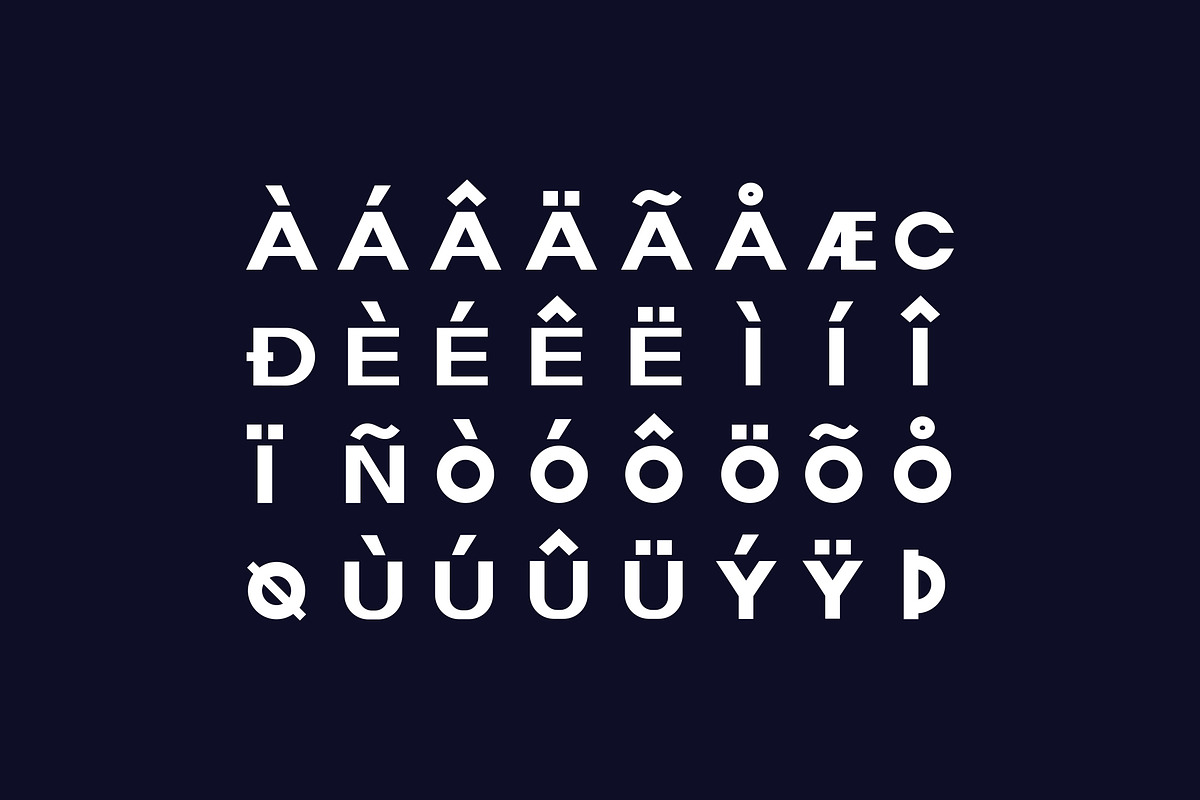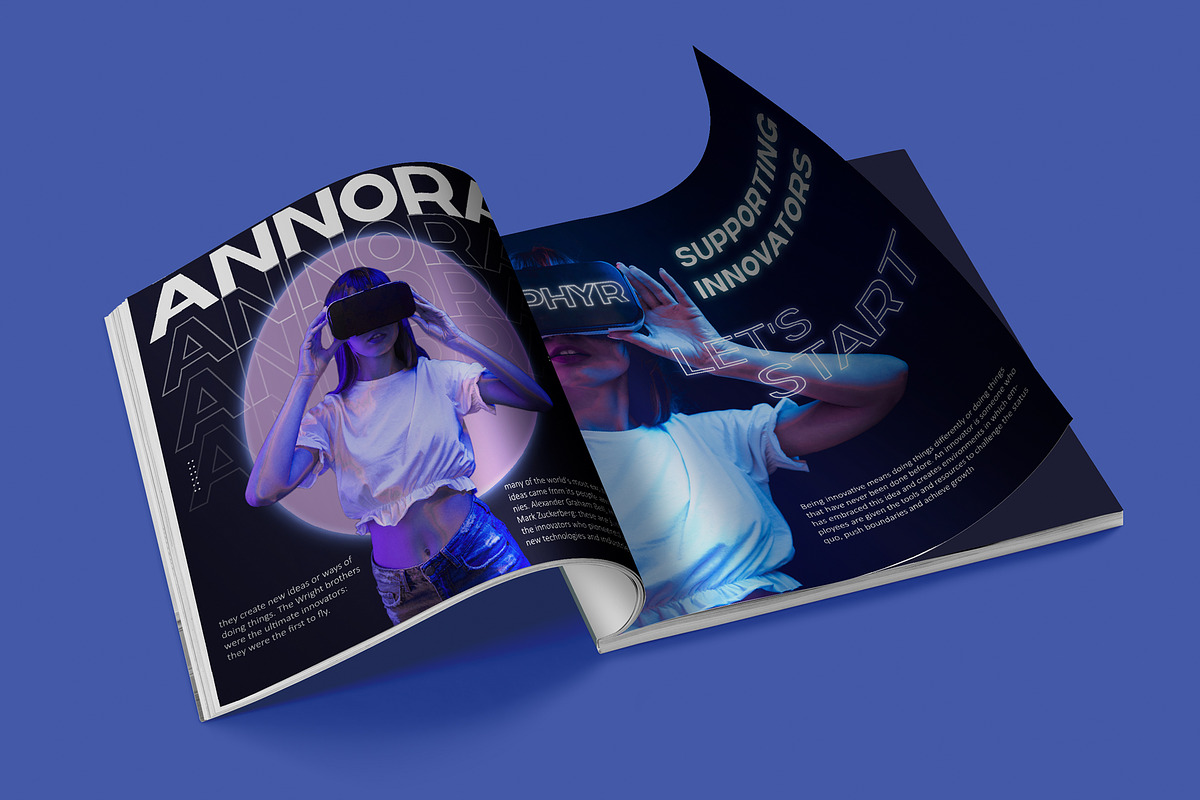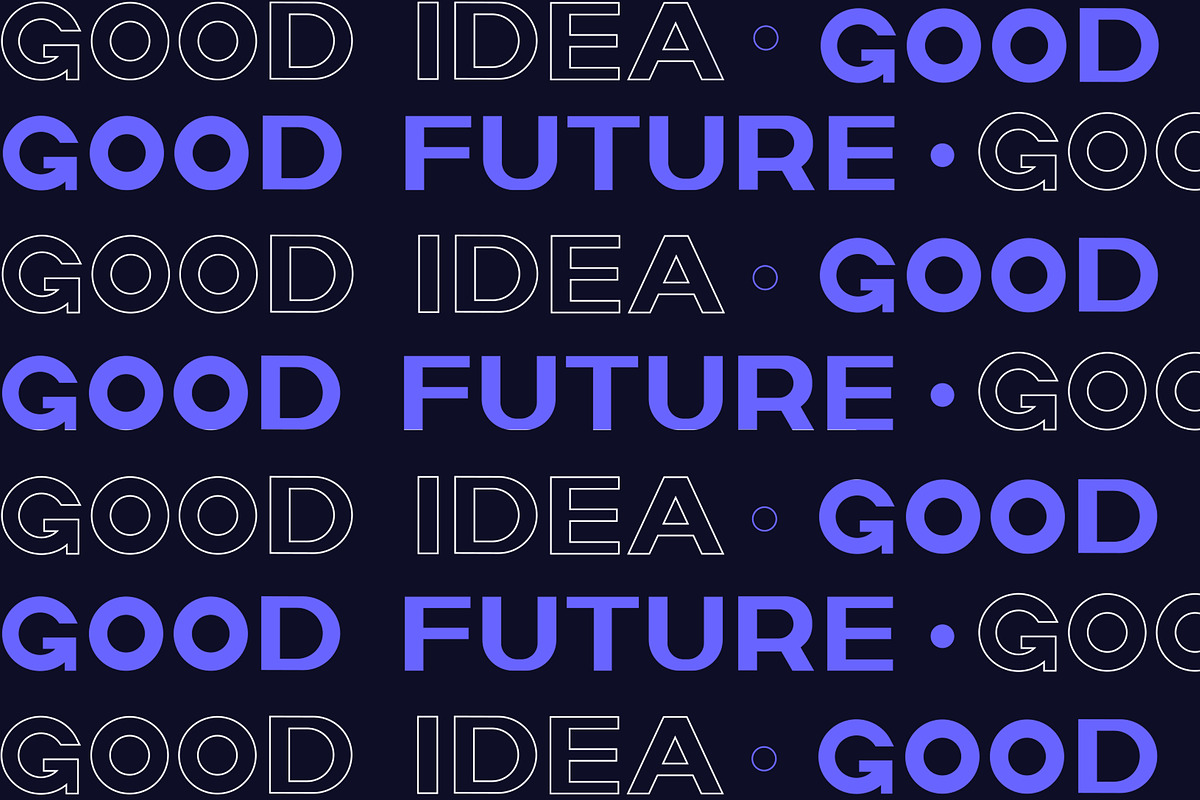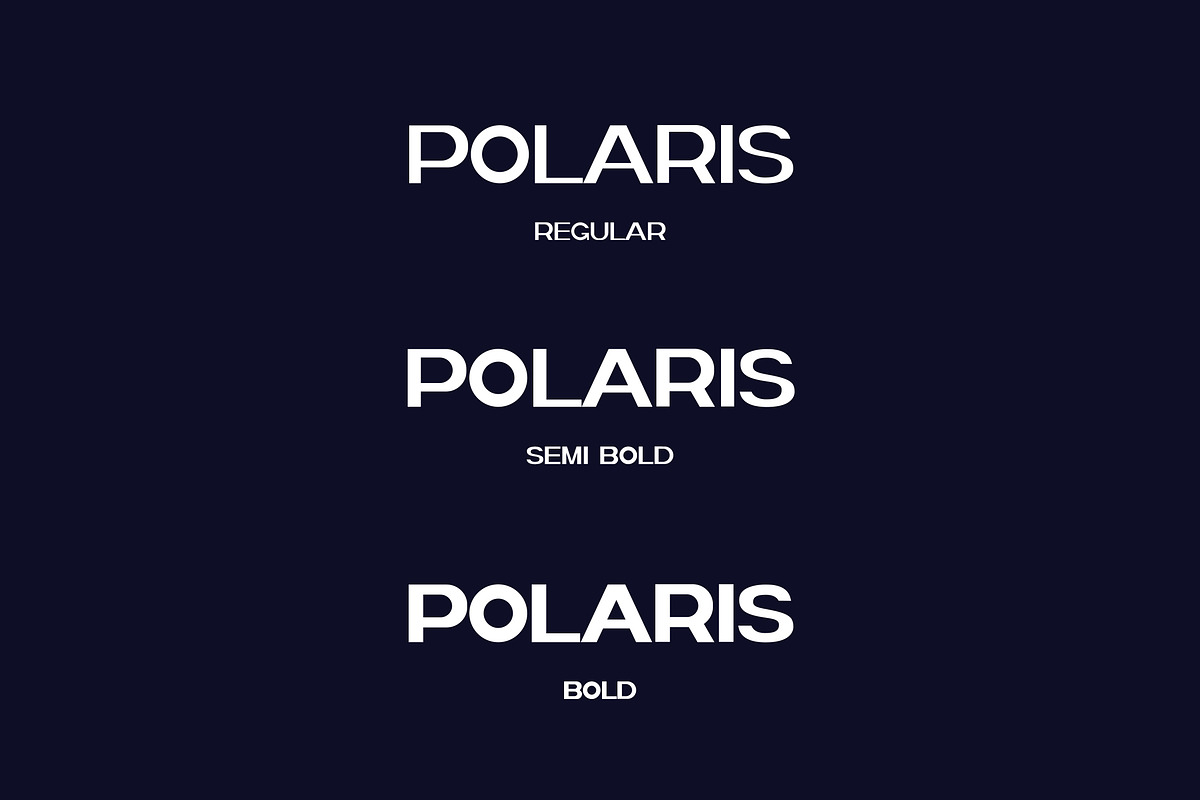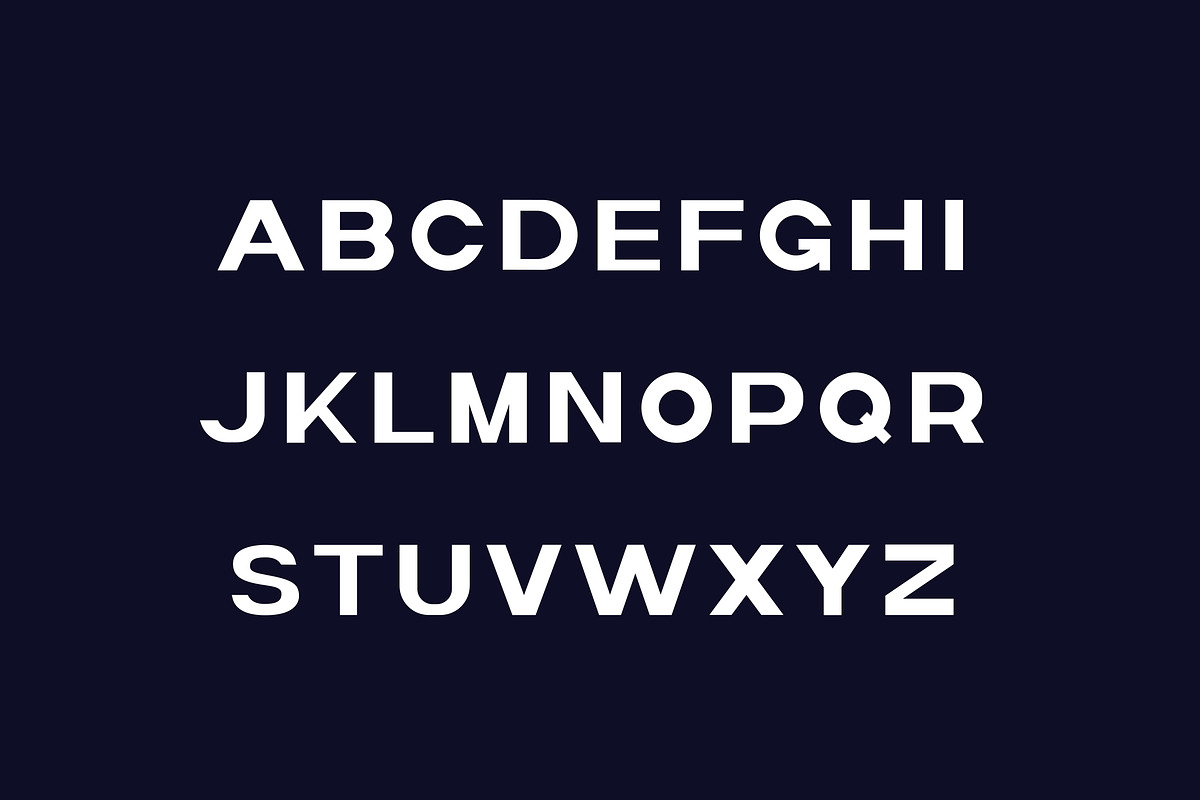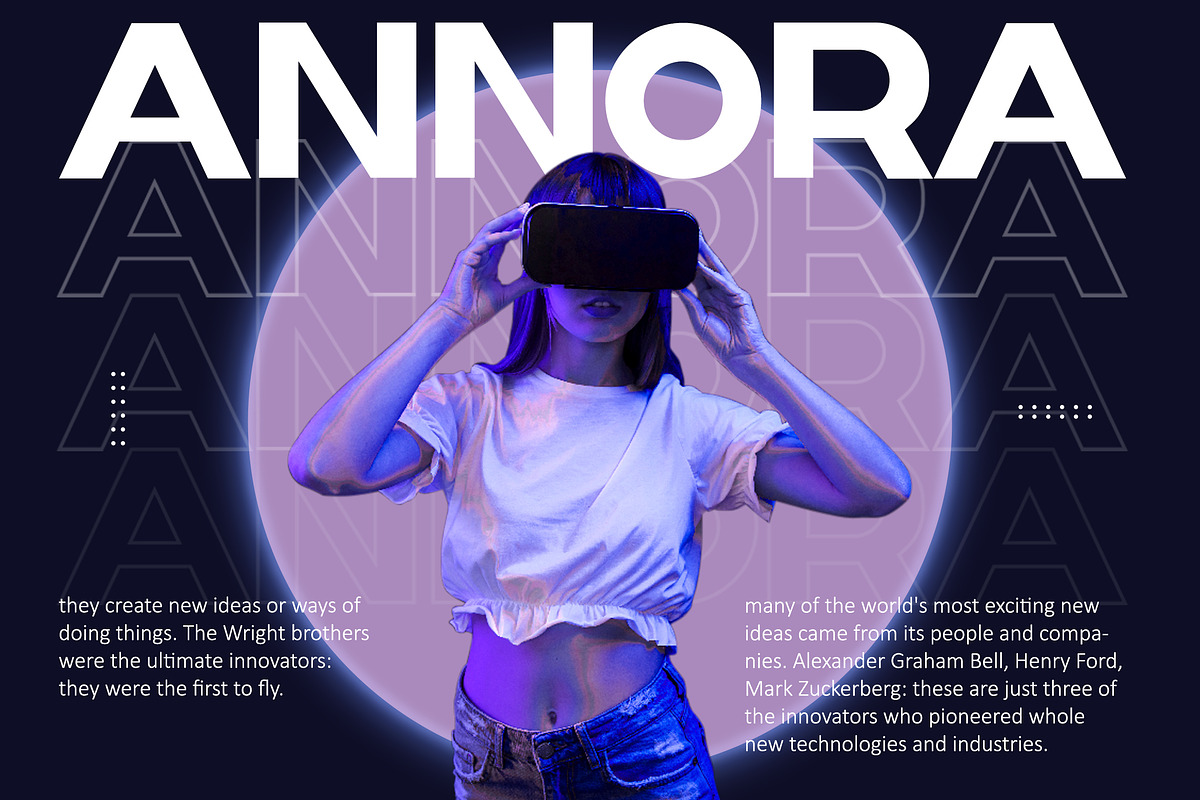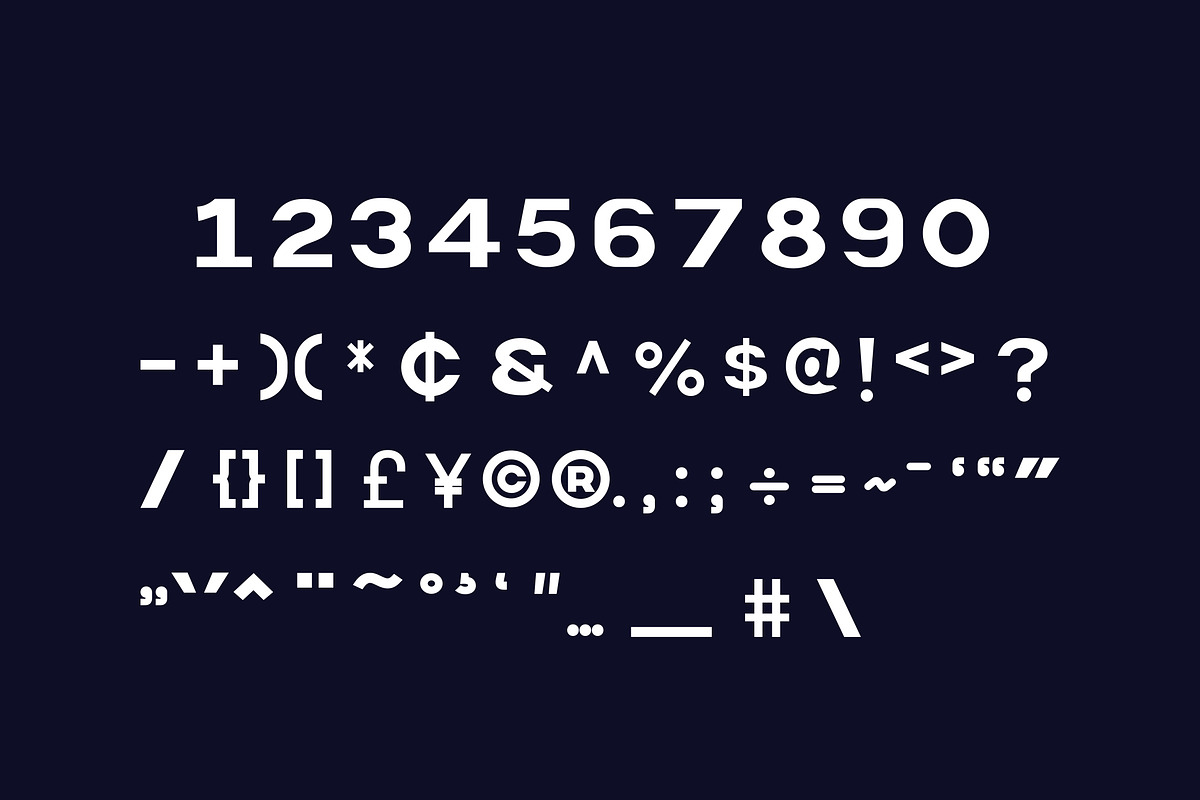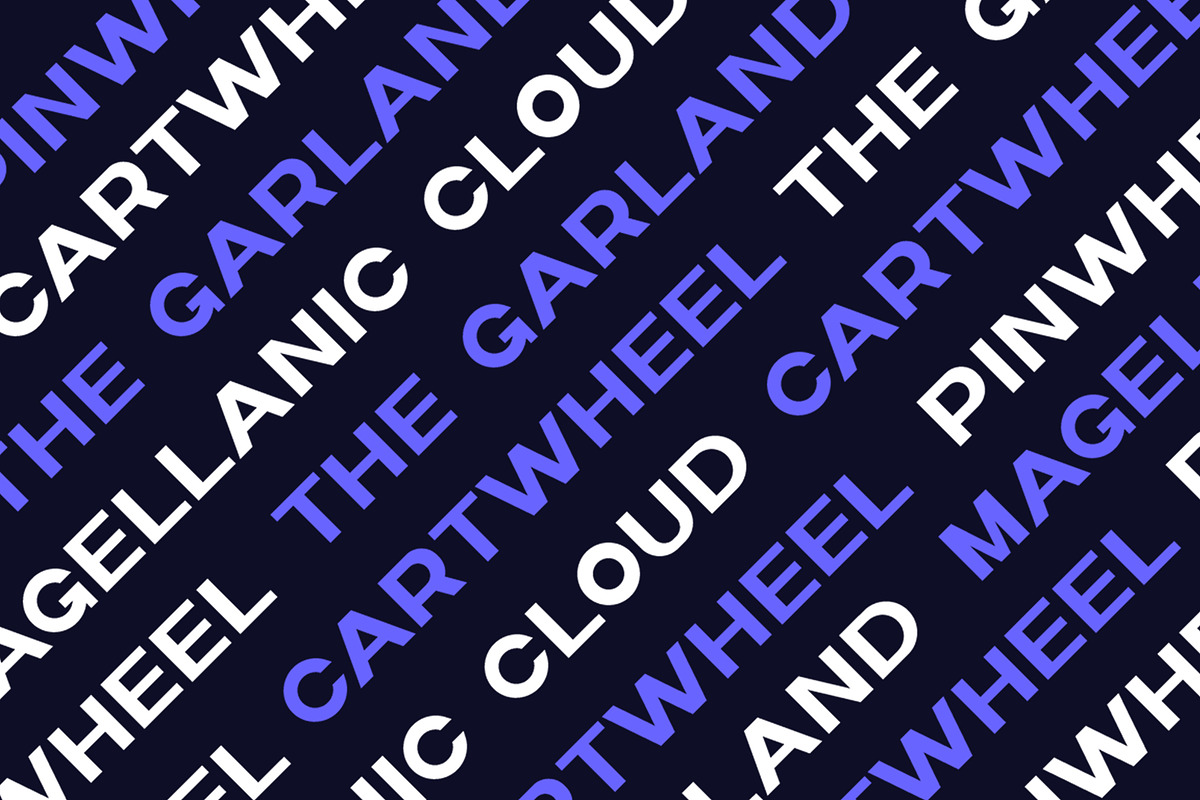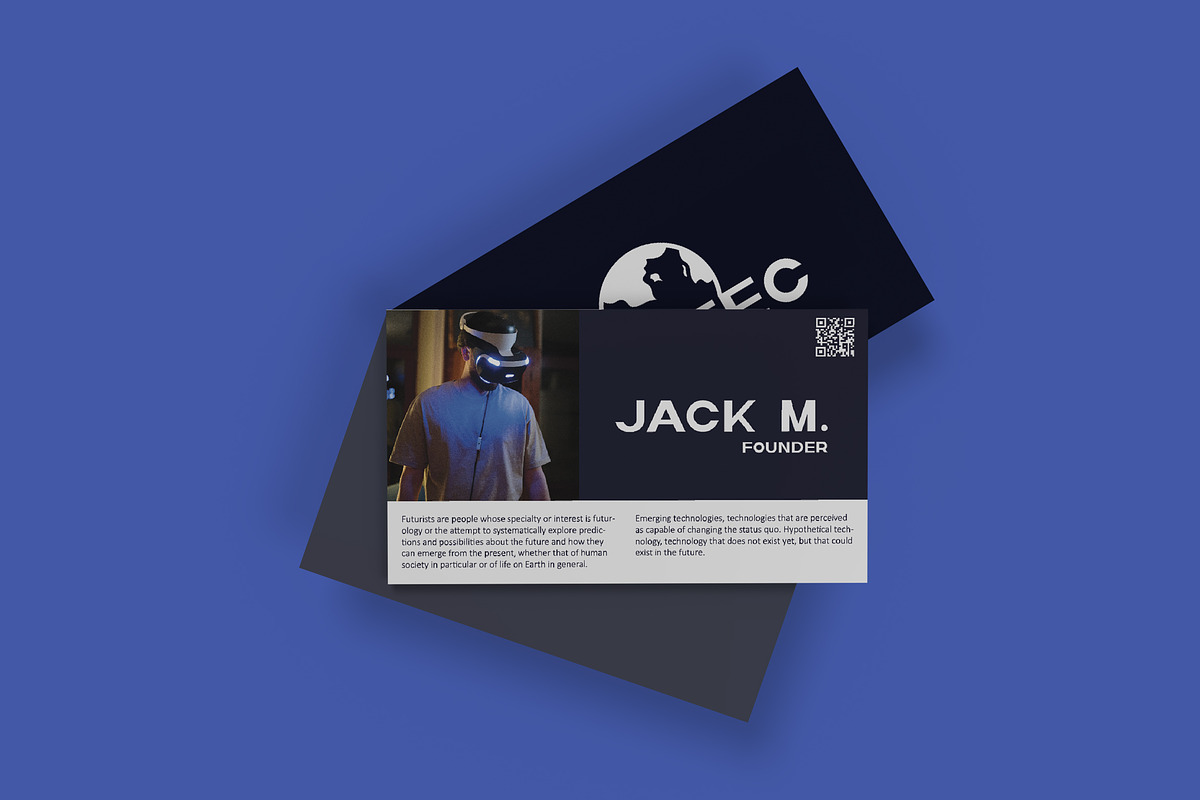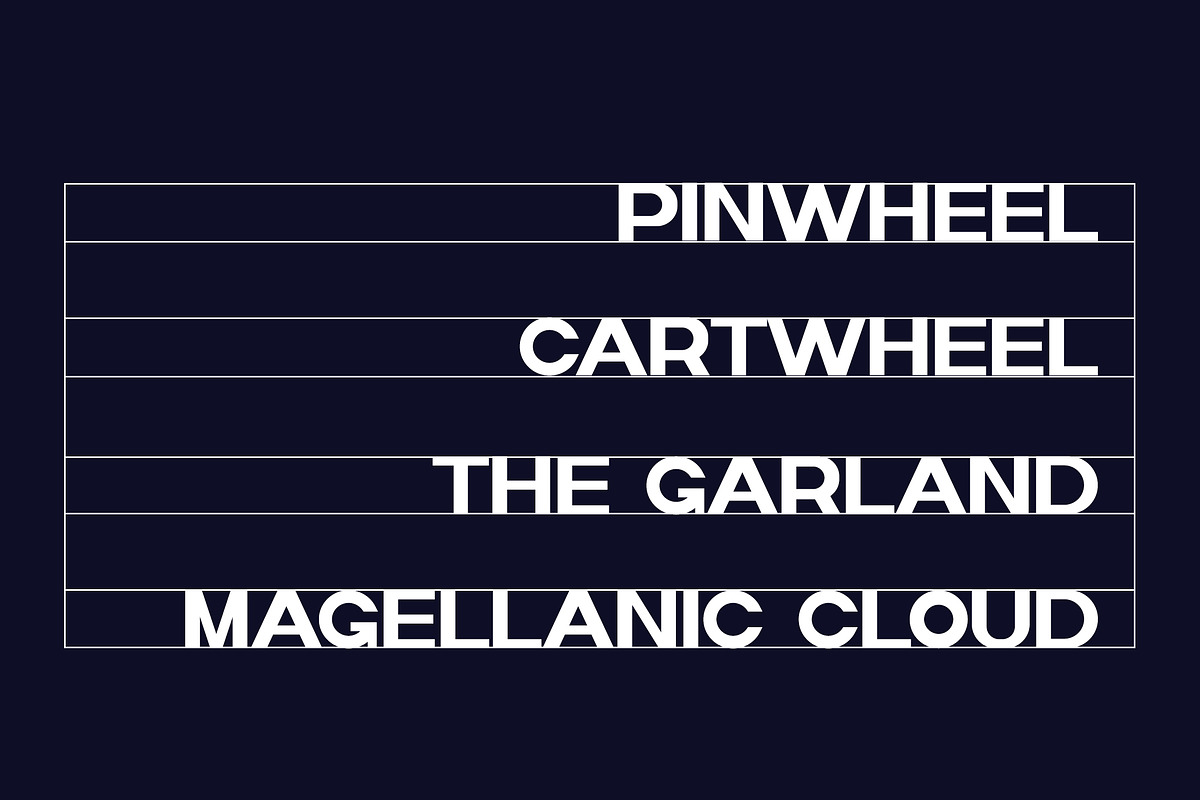
Polaris Futuristic Bold Typeface
Introducing Polaris Futuristic Bold, a modern and strong sans serif. It's a very versatile font that works great in large and small sizes. Perfect for branding projects, Logo design, Clothing Branding, product packaging, magazine headers, or simply as a stylish text overlay to any background image.